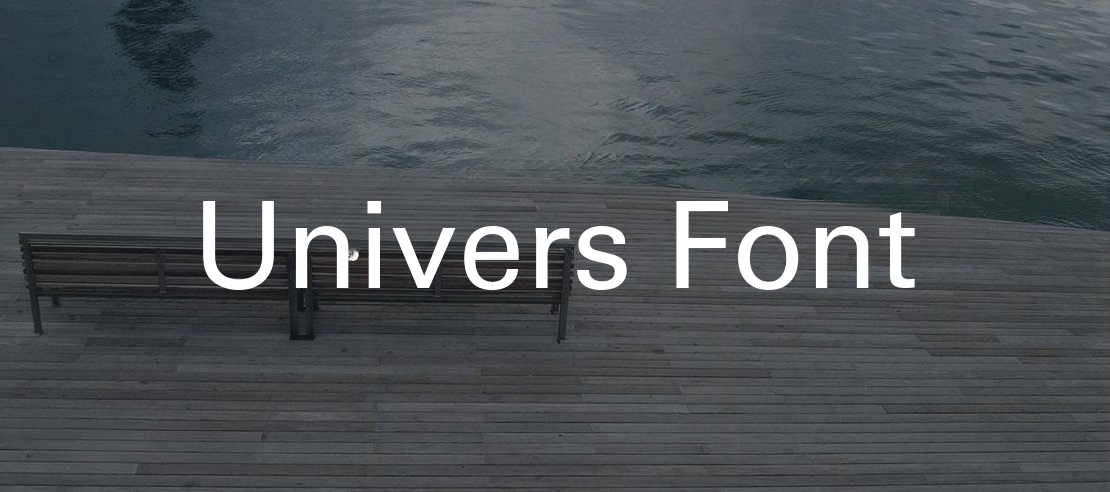
Univers Font
Here we are presenting you one of the famous typefaces named Univers Font. This font belongs to the Sans-Serif typeface family. This typeface is known as the first font that was designed with a family of its own.
This font-weight (Condensed Regular) is used in the Latin text at Athens Airport for signposting. You can easily pair it with noto serif font.